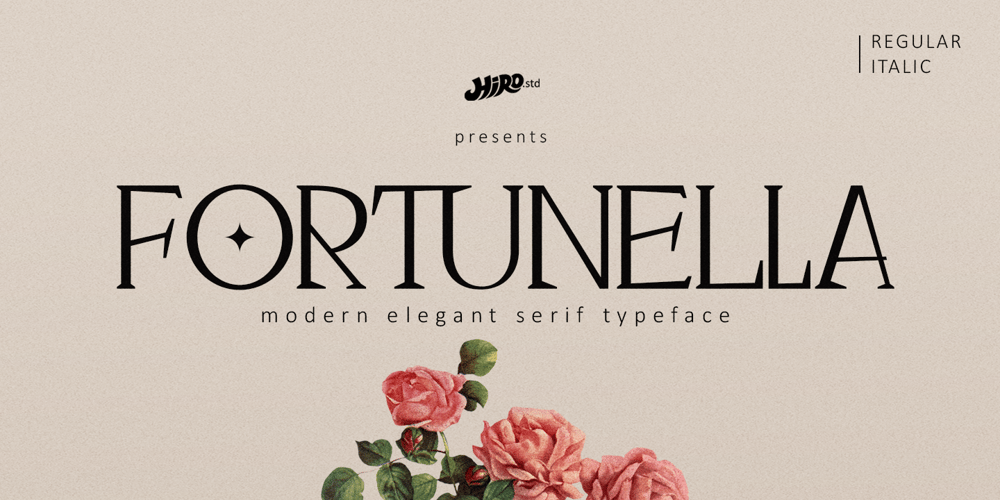
Fortunella
Fortunella font
Fortunella Font Family was designed by Chairul Ashar and published by HIRO.std. Fortunella contains 2 styles and family package options. Fortunella is a modern elegant serif font This font describes about elegant, luxury, modern, stylish, exclusive and very easy to use. Fortunella inspired from the modern era and simple life style. FEATURES- Uppercase and Lowercase letters- Support Opentype Features- Numbering and Punctuations- PUA Encoded Characters- 37 Uppercase Ligatures- Multilingual Support- Works on PC or Mac USEFortunella works great in logotype, magazines, fashion, craft, packaging, books, novels and any type of advertising purpose. Enjoy using!Thanks. HIRO.std